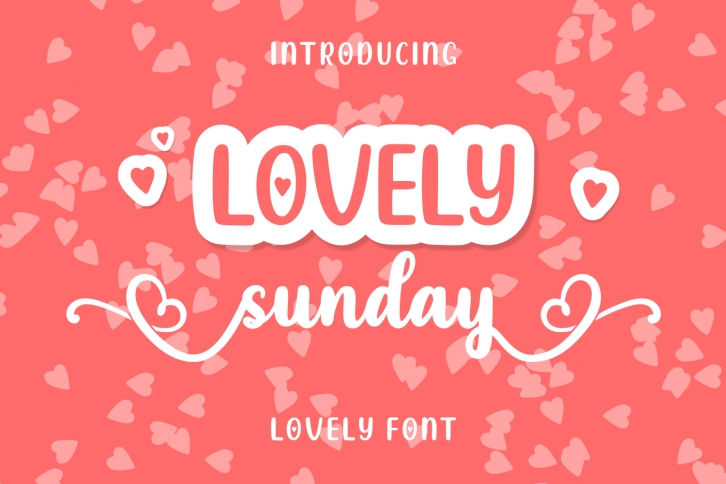
Lovely Sunday is a beautiful font that was designed by MakashiCreative. It's a great choice for designers and creatives who need such a font. It was released on February 8, 2020 and the file size is 9.30 MB. Lovely Sunday may give a more youthful, expressive and casual look to your project. It is a very beautiful, refined, elegant, and high-quality font.